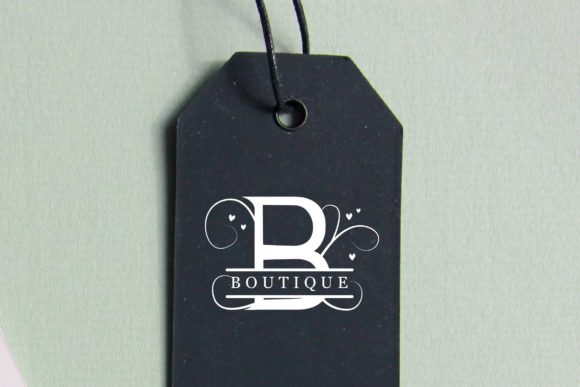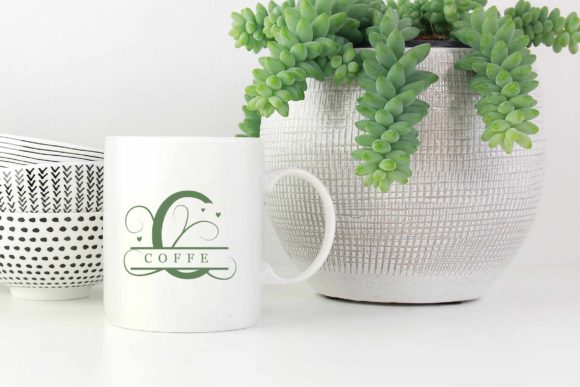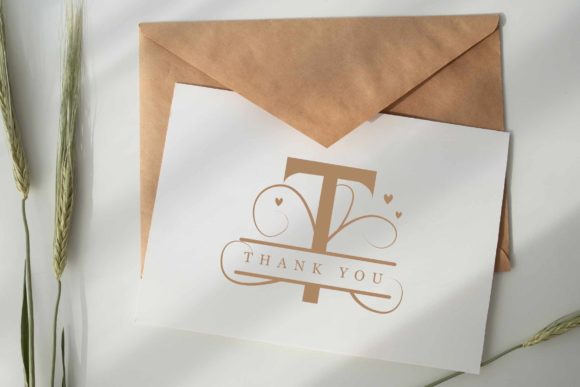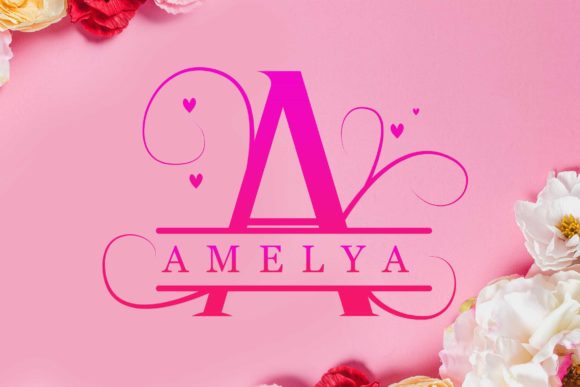
Introducing Amelya Monogram Font: Elevate Your Designs with a Touch of Elegance
Are you a designer or crafter looking for a font that adds a refreshing and beautiful touch to your creations? Look no further than Amelya Monogram Font, a cool and interesting decorative font designed to take your designs to the next level. In this article, we’ll explore the features and benefits of Amelya Monogram Font, and how it can become an essential part of your design toolkit.
The Story Behind Amelya Monogram Font
Amelya Monogram Font was particularly crafted for those who need a beautiful and refreshing look to their designs. The font’s creators aimed to design a typeface that not only stands out but also brings a unique charm to any project. Whether you’re working on a logo, a branding project, or a craft, Amelya Monogram Font is the perfect choice for adding a touch of elegance and sophistication.
Key Features of Amelya Monogram Font
So, what makes Amelya Monogram Font so special? Here are some of its key features:
- Unique Monogram Style: Amelya Monogram Font boasts a distinctive monogram style that sets it apart from other fonts. Its intricate and beautifully designed characters make it perfect for creating stunning monograms and logos.
- Decorative and Elegant: This font is designed to add a touch of elegance and sophistication to your designs. Its decorative style makes it ideal for special projects, such as wedding invitations, branding materials, and high-end product labels.
- Highly Versatile: Amelya Monogram Font is incredibly versatile and can be used across various design projects, from digital designs to print materials.
- Easy to Use: Despite its intricate design, Amelya Monogram Font is easy to use and works seamlessly with most design software.
Who Can Benefit from Amelya Monogram Font?
Amelya Monogram Font is a valuable asset for a wide range of designers and crafters, including:
- Graphic Designers: If you’re a graphic designer looking for a unique font to add to your collection, Amelya Monogram Font is an excellent choice. Its distinctive style will help your designs stand out.
- Logographers: Creating custom logos requires a font that can deliver a professional and elegant look. Amelya Monogram Font is perfect for logographers who want to create stunning and memorable logos.
- Crafters and Makers: If you’re into crafting or making products, Amelya Monogram Font can add a beautiful touch to your product labels, packaging, and marketing materials.
- Stationery and Card Makers: For those who create stationery, greeting cards, or invitations, Amelya Monogram Font offers a sophisticated and decorative style that will make your creations shine.
How to Use Amelya Monogram Font Effectively
To get the most out of Amelya Monogram Font, consider the following tips:
- Pair with Complementary Fonts: Combine Amelya Monogram Font with simpler fonts to create a balanced and harmonious design.
- Experiment with Colors: The font looks great in various colors, so don’t be afraid to experiment and find the perfect color scheme for your design.
- Use for Headlines and Titles: Amelya Monogram Font is perfect for headlines and titles, where its decorative style can make a significant impact.
Amelya Monogram Font is a beautiful and refreshing decorative font that can elevate your designs to new heights. Its unique monogram style, elegance, and versatility make it an essential tool for designers and crafters looking to add a touch of sophistication to their creations. Whether you’re working on a logo, branding project, or craft, Amelya Monogram Font is sure to impress. So why wait? Download Amelya Monogram Font today and discover a world of creative possibilities!